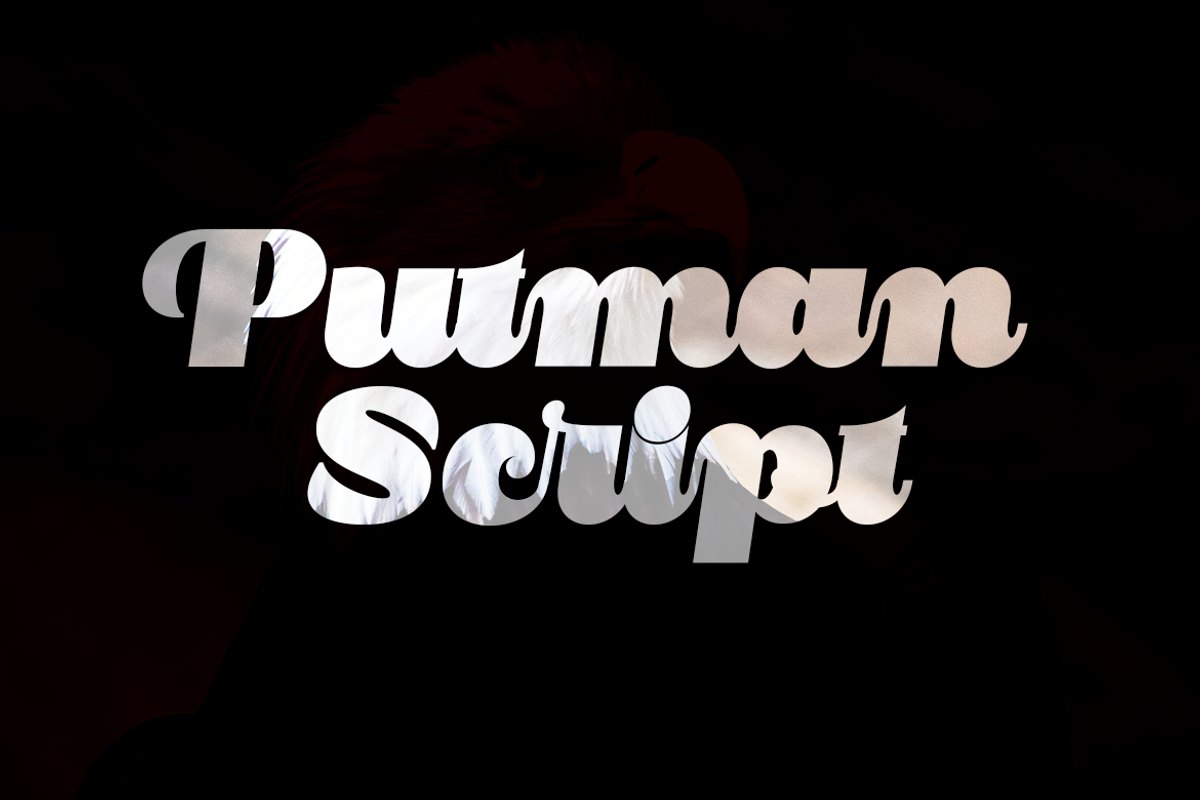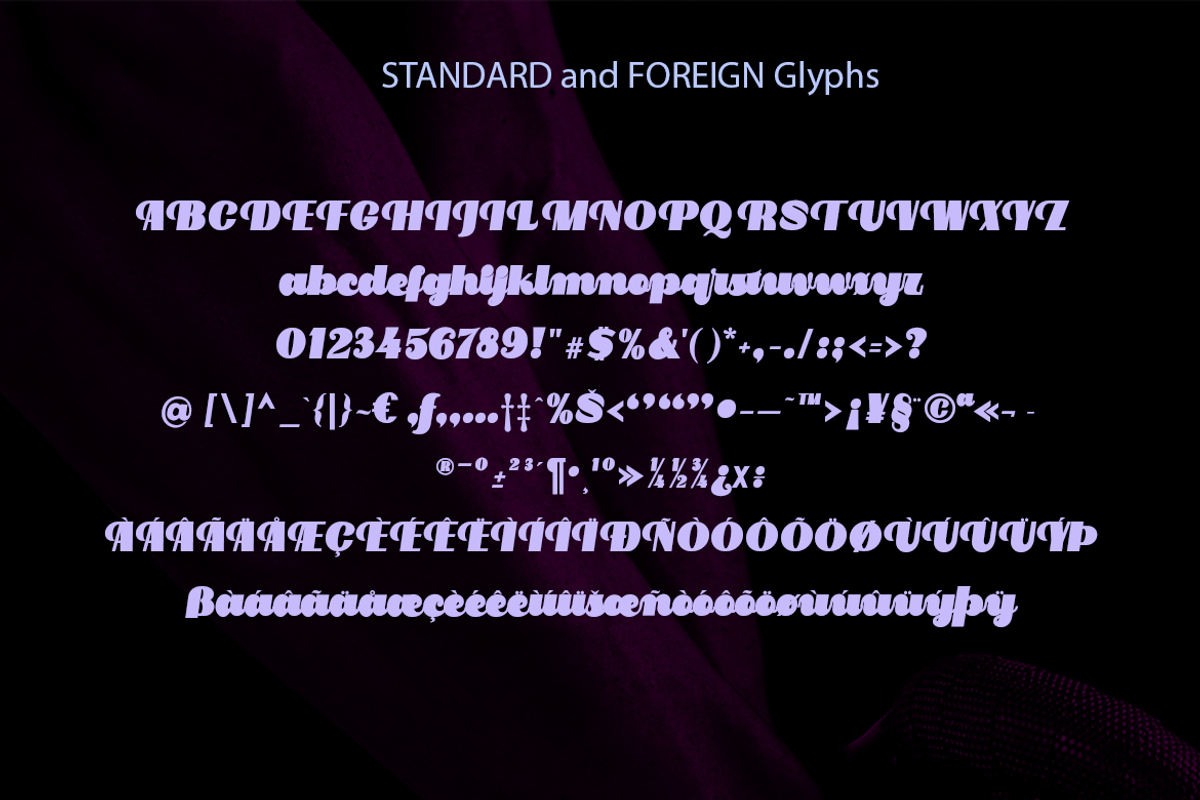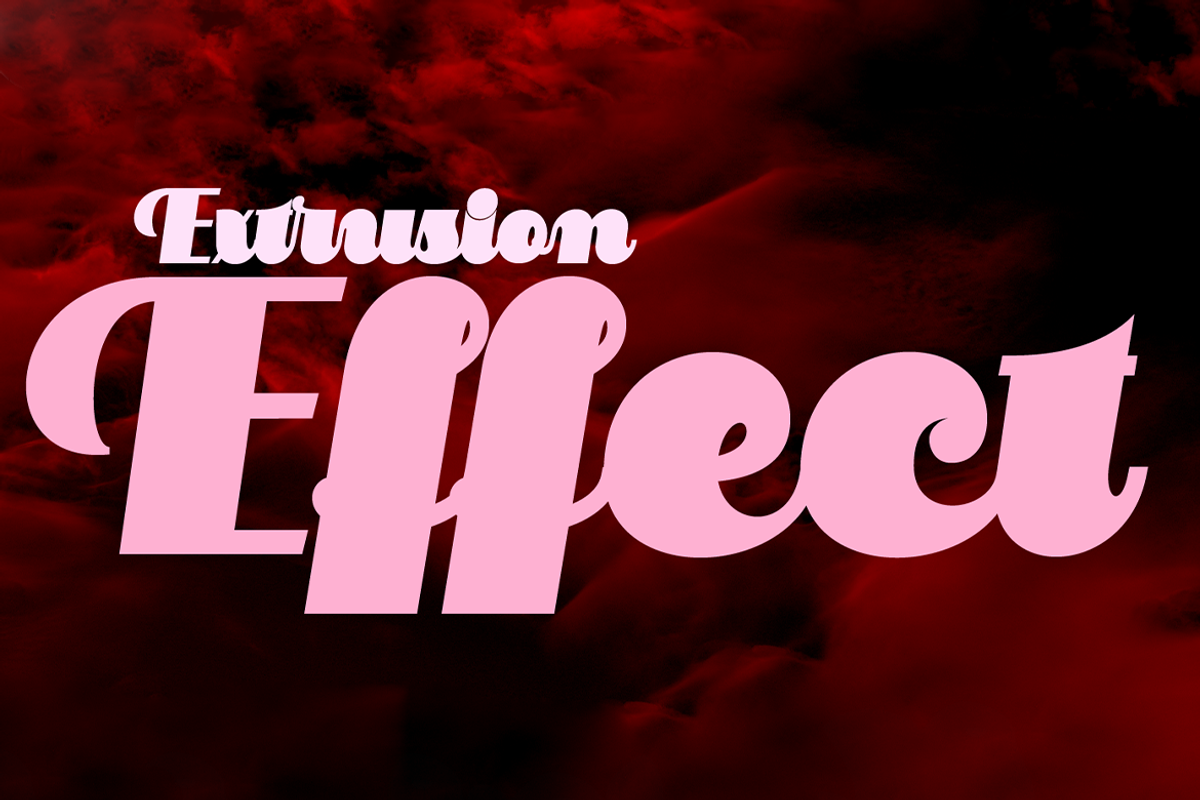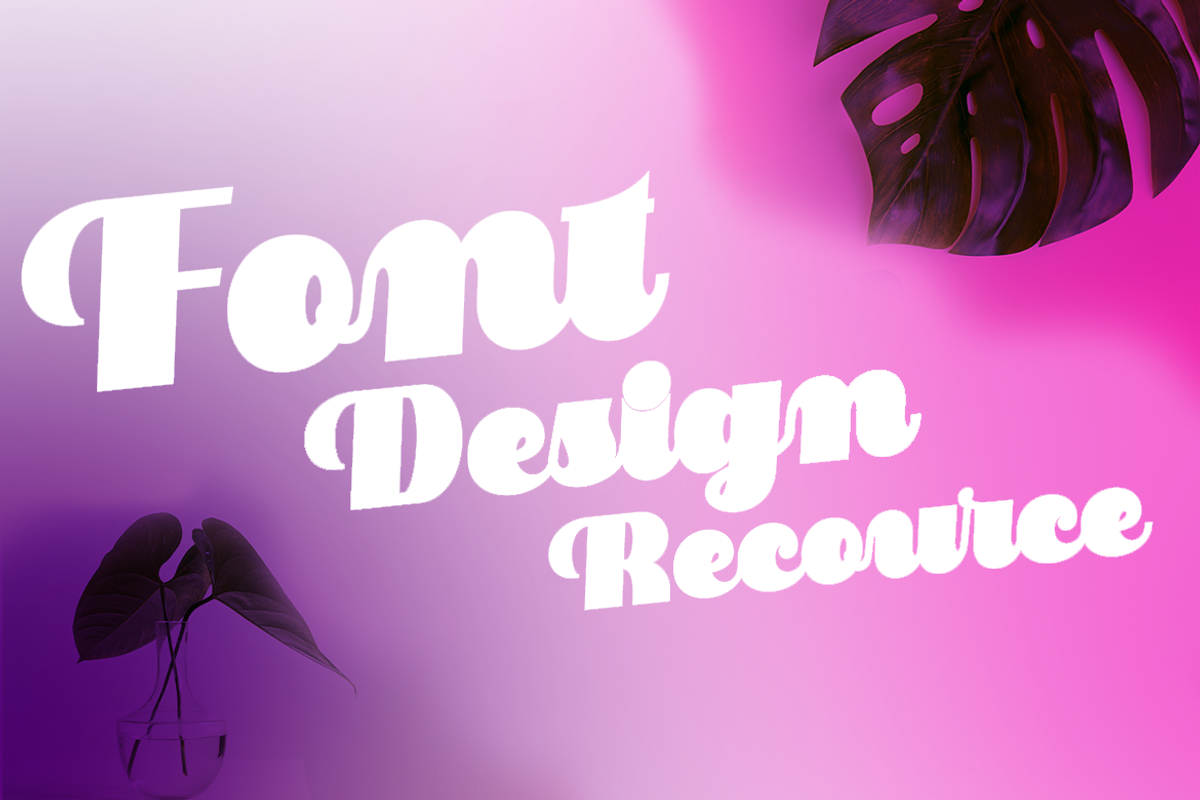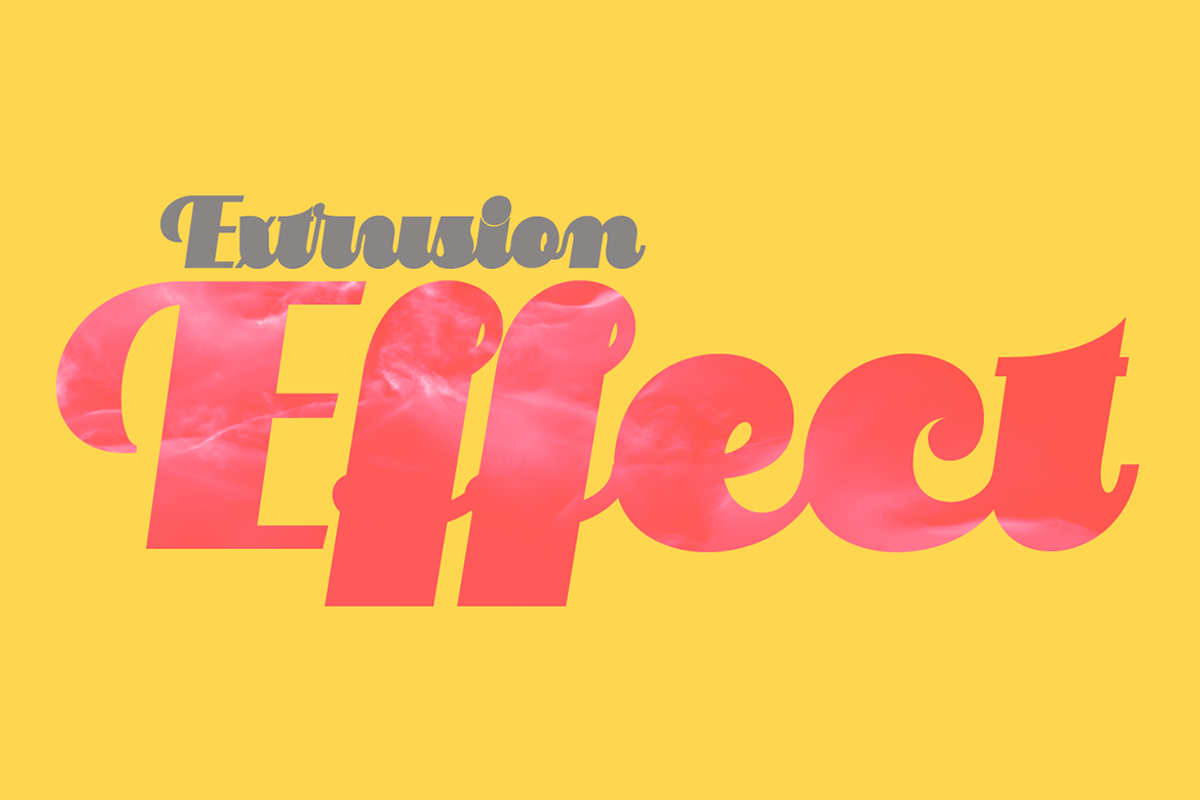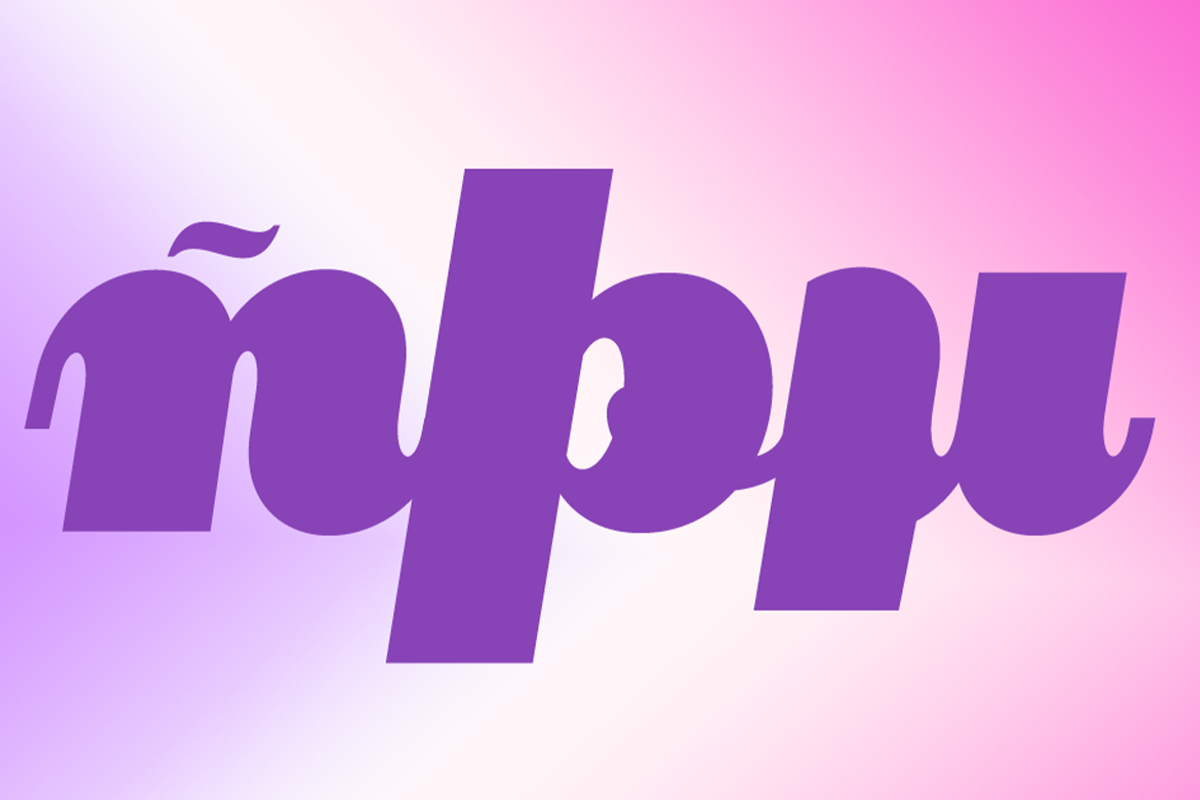
Putnam Script
Putnam Script This is my font based on a handwritten project in a modern Script style in the modern era. it is a model of modern calligraphy typefaces, in combination with a calligraphy writing style. very much with today's retro typography designs.